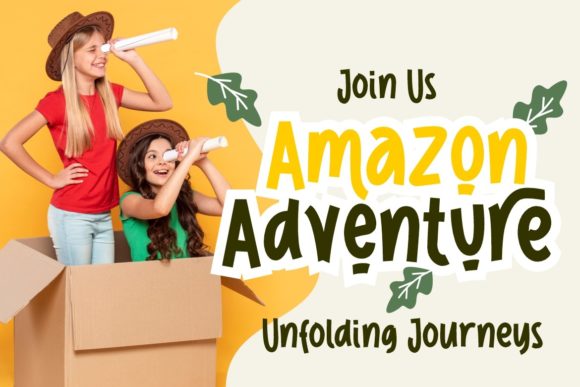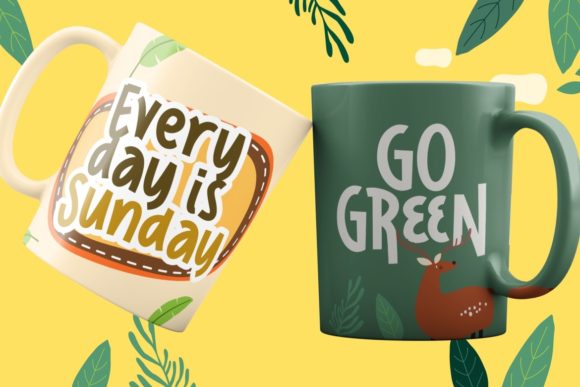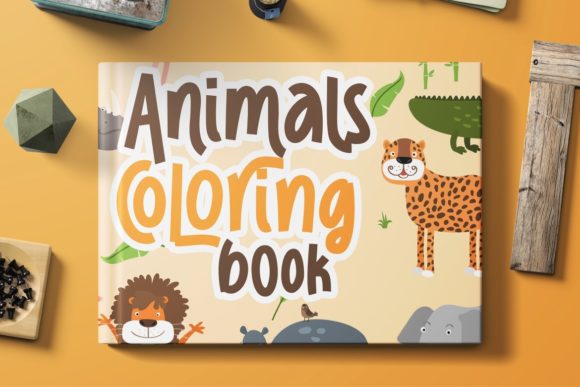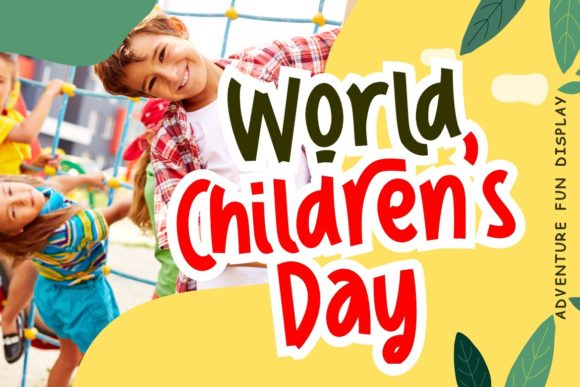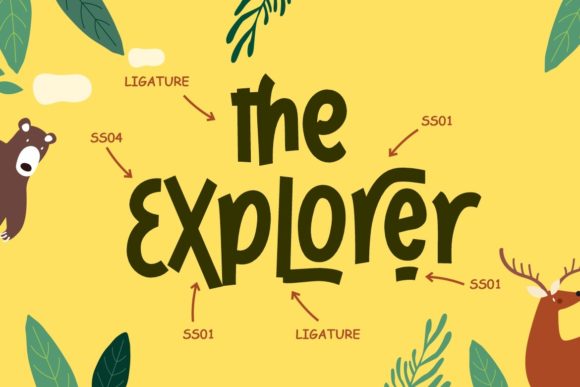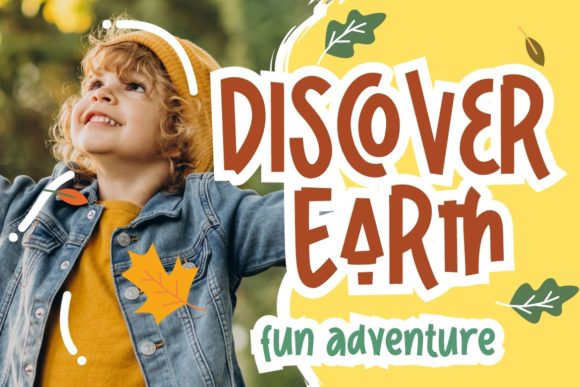
Introduction to Hancoke Font
As a designer, you know the thrill of finding the perfect font to bring a project to life. It’s that moment when the words on the page start to dance and the message becomes clear. For me, it was the time I stumbled upon the Hancoke Font, and I knew I had to share it with the world. This cute and fun display font is more than just a design resource – it’s a key to unlocking creativity and authenticity in your work.
| 📌 Product Name | Hancoke Font |
| 👤 Author | CreatypeStudio |
With its chunky letters and transparent background, the Hancoke Font is the perfect addition to any high-quality design. Whether you’re working on a creative project for a child or a school, this font is sure to make your designs stand out. And the best part? It’s available for free download, making it a valuable resource for designers of all levels.
Key Features of Hancoke Font
- High-quality design resource for creative projects, available as a free download.
- Unique, hand-drawn design with a transparent background, perfect for overlaying on images or videos.
- Includes 5 different font styles and weights, allowing for versatility in creative projects.
- Perfect for designers, artists, and creatives looking for a unique and high-quality design resource.
Honest Review: Hancoke Font
I recently stumbled upon the Hancoke Font while searching for a new design resource to spice up my creative project. As a designer, I’m always on the lookout for high-quality fonts that can add a touch of sophistication to my designs.
- ✨ Unique and modern design aesthetic: The Hancoke Font boasts a sleek and modern look that’s perfect for contemporary designs.
- ✨ Wide range of styles: The font comes in multiple styles, including bold, italic, and regular, making it versatile for various design needs.
- ✨ High quality: The font is crisp and clear, making it ideal for both digital and print designs.
- ⚠️ Limited character set: While the font has multiple styles, the character set is somewhat limited, which might not be suitable for complex designs.
- ⚠️ Not ideal for transparent background: The font might not be the best choice for designs with transparent backgrounds, as it may not display well.
Overall, I’m impressed with the Hancoke Font, and I would definitely recommend it to designers looking for a high-quality, modern font for their creative projects. Just be aware of its limitations, and use it wisely.
Tips for Getting the Most Out of Hancoke Font
Use the Hancoke Font in combination with a transparent background to create visually appealing designs. Experiment with different font sizes and styles to add emphasis and create hierarchy in your designs.
The Hancoke Font is ideal for use in creative projects, such as logos, brochures, and social media graphics. It is also suitable for use in presentations, documents, and other written content.
Q: Can I use the Hancoke Font with a transparent background in my design?
Yes, the Hancoke Font is designed to be highly legible, even when used with a transparent background. The font’s clear lines and high quality design ensure that it remains readable and visually appealing, even when overlaid on top of other design elements.